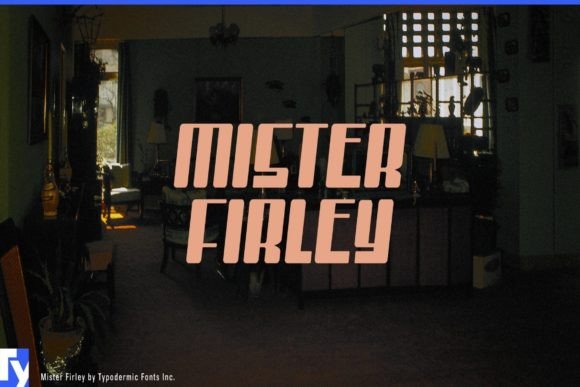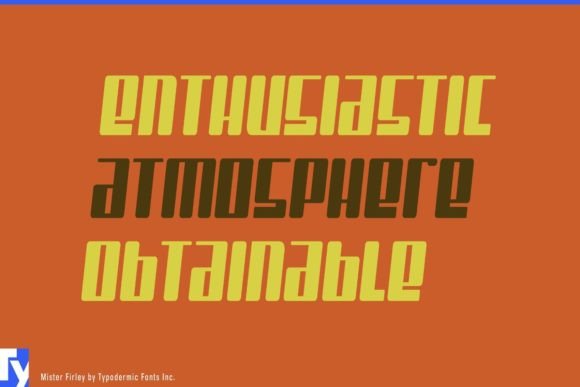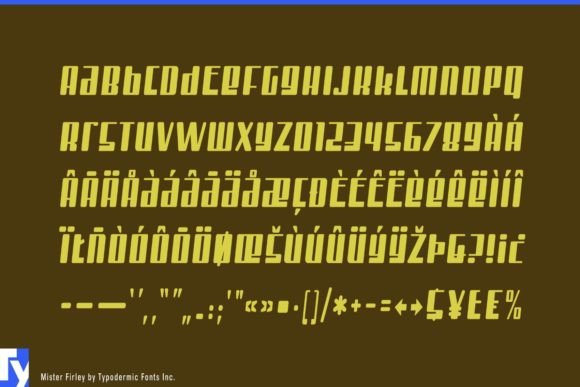
Mister Firley Font: A Bold Industrial Display Font for Logos
About the Mister Firley Font
Presenting Mister Firley Font, a unique and stylish typeface that will make your work stand out. Mister Firley is an industrialized-style headline yeller display font that will help your craft stand out from the competition. Add it to your favorite creative projects, and notice how it makes them come alive!
Mister Firley’s strong, geometric forms make it ideal for headlines, logos, and short impactful statements in branding materials and posters. Its industrial aesthetic lends itself well to projects with a vintage, mechanical, or rugged feel. Avoid using it for body text or lengthy paragraphs; its weight and condensed design make it less legible for extended reading.
The font’s bold personality pairs well with clean, neutral sans-serifs like Open Sans or Montserrat for a balanced contrast. For a more vintage feel, consider pairing it with a classic serif such as Garamond or Playfair Display. Avoid pairing it with overly decorative or script fonts, which might clash with its industrial character.
Mister Firley projects a confident, bold, and slightly rebellious personality. Brands targeting a masculine demographic, products emphasizing strength and durability, or projects with a retro-industrial aesthetic will find it particularly effective.
Mister Firley Font Usage Examples
Mister Firley Font Example